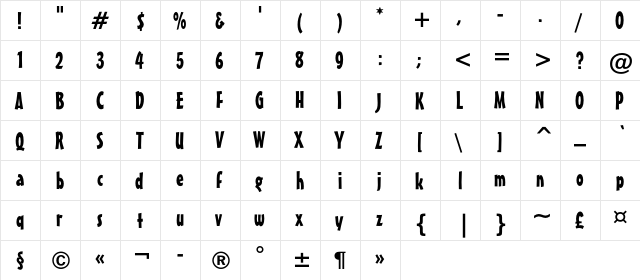
Maestro Regular
Design Context for Maestro Typeface
Maestro offers clean, dependable letterforms without strong stylistic allegiance, making it a practical choice for designers who need flexibility.
Pro Tip: Pair Maestro with a font of contrasting weight or personality to build a more expressive typographic hierarchy.